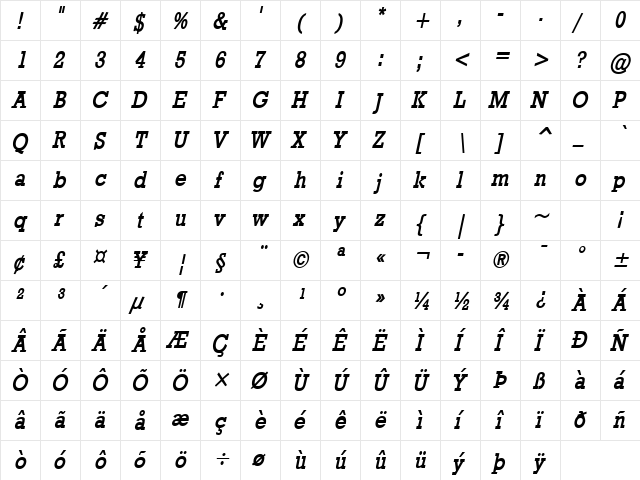
Geo 986-Condensed Bold Italic Font Preview
Design Context for Geo 986-Condensed Typeface
Geo 986-Condensed is a composed and adaptable typeface that performs quietly and consistently across a wide range of design contexts. Its italic angle brings a sense of urgency and motion to the letterforms. The heavy weight commands attention and anchors typographic hierarchies. Its narrow stance lets it pack a punch even in space-constrained designs.
Pro Tip: Try Geo 986-Condensed for annotation and caption copy alongside an upright companion — the contrast in angle creates a dynamic but ordered typographic system.